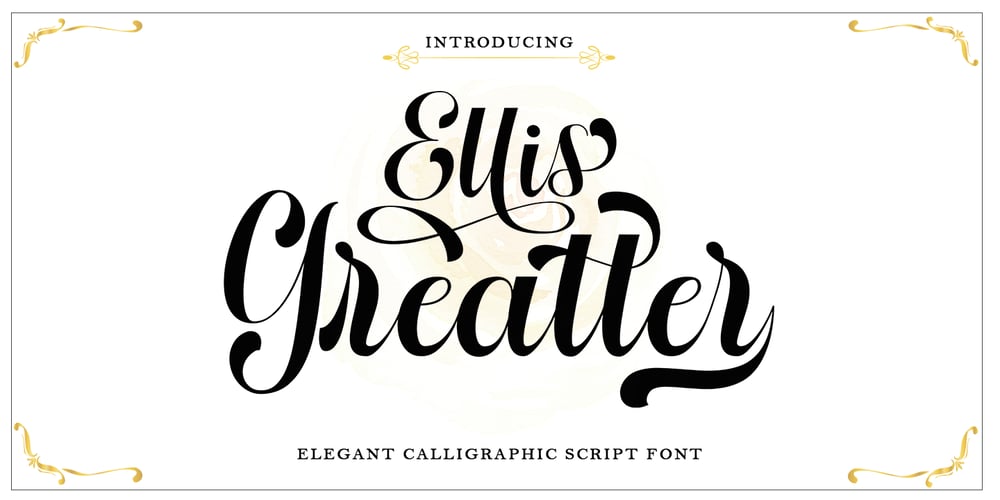
Ellis Greatter Font Family was designed by Zaki Muhammad and published by madjack.font. Ellis Greatter contains 1 styles and family package options. Ellis Greatter is an easy to read script that is designed with a vintage look making it bold, classic and fun. It includes OpenType features and alternative styles. It can be used for various purposes such as posters, t-shirts, signage, logos, news, badges and more. International support for most Western languages is included.